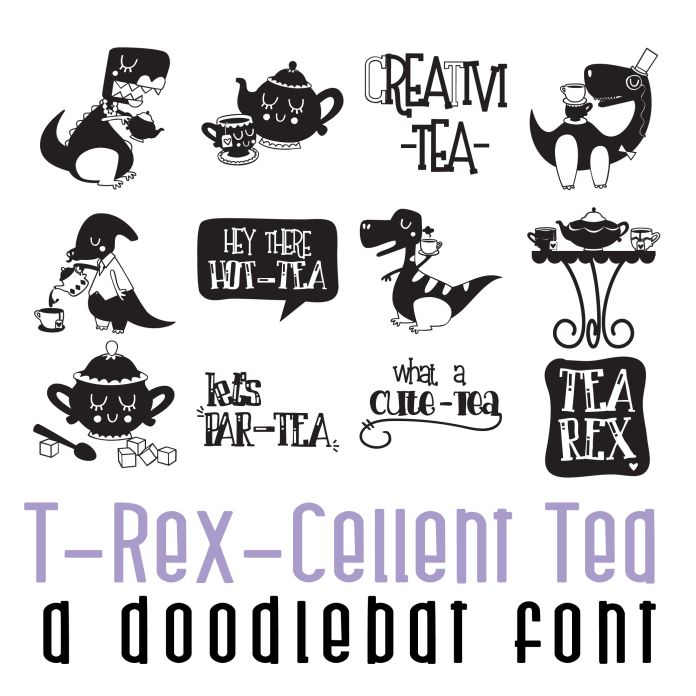
T-Rex-Cellent Tea Doodlebat Font is a playful and whimsical design featuring 26 dinsaurs and tea themed imagery. Perfect for adding a fun touch to menus, invitations, and other dining-related designs. This font is sure to bring a smile to anyone's face with its unique and creative style. Perfect for cards, crafts, parties, gifts, decor, planner stickers, classrooms, scrapbook pages and more!